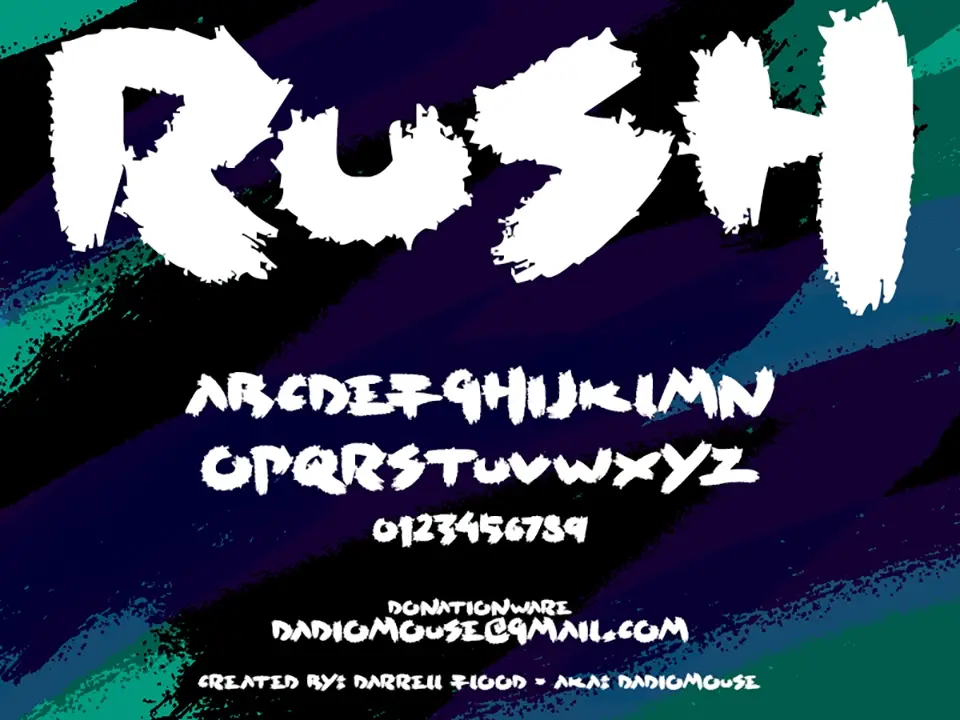
Rush Font
Rush Font is a dynamic script typeface designed by Darrell Flood. Its bold brush strokes deliver a casual yet energetic vibe, ideal for playful branding, poster headlines, invitations, or creative digital art. With spirited, bouncy letterforms, Rush adds a touch of personality and movement to any design needing impact and style. Free for personal use with commercial licensing available, this font is well-suited for projects looking for expressive and modern calligraphic elements.